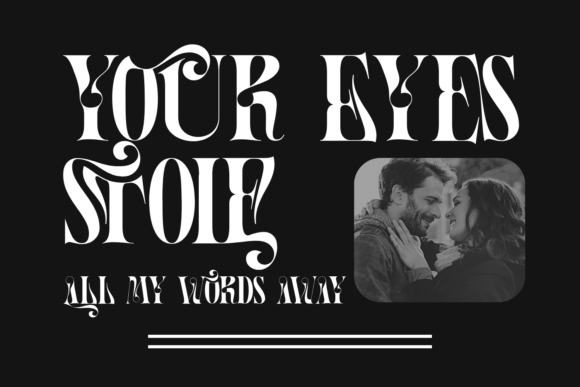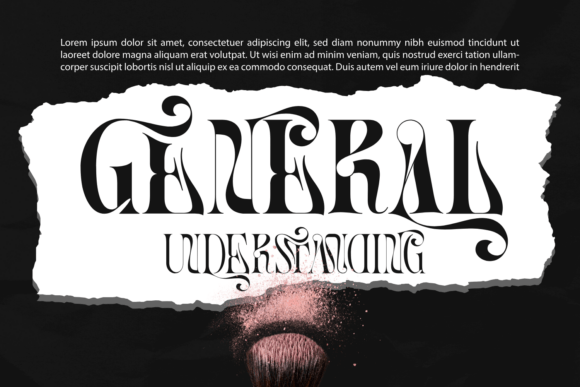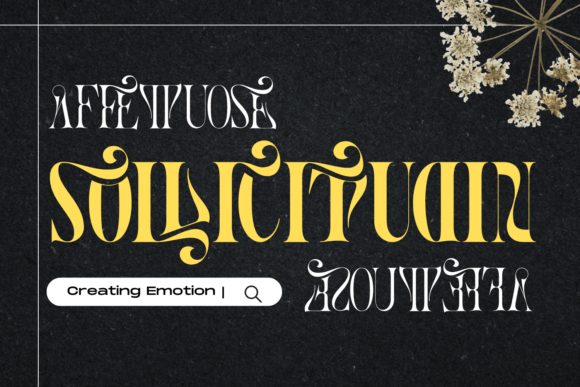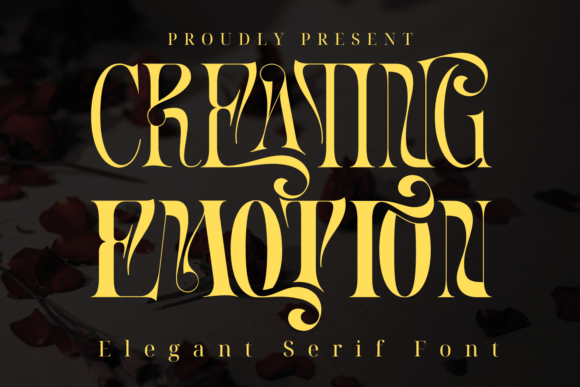
Introduction to Creating Emotion Font
Creating Emotion, a dramatic serif display font that exudes elegance and mystique.
With a bold regular version, and ligatures, this typeface is designed to elevate any project Using all capitals will give you a highly stylized text, while combining capitals with lowercase will give you a highly legible text.
Creating Emotion Font offers exceptional quality and versatility, making it a valuable addition to your design toolkit. Whether you’re creating for personal projects or commercial use, Creating Emotion Font delivers professional results.